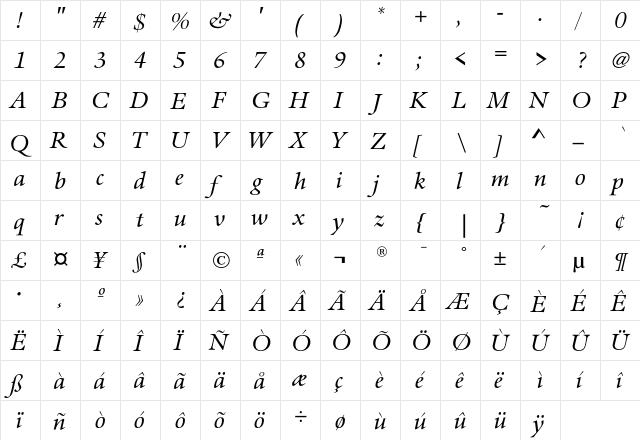
AureliaEF-BookItalic Regular
Design Context for AureliaEF-BookItalic Typeface
AureliaEF-BookItalic is a composed and adaptable typeface that performs quietly and consistently across a wide range of design contexts. Its italic angle brings a sense of urgency and motion to the letterforms.
Pro Tip: Try AureliaEF-BookItalic for annotation and caption copy alongside an upright companion — the contrast in angle creates a dynamic but ordered typographic system.